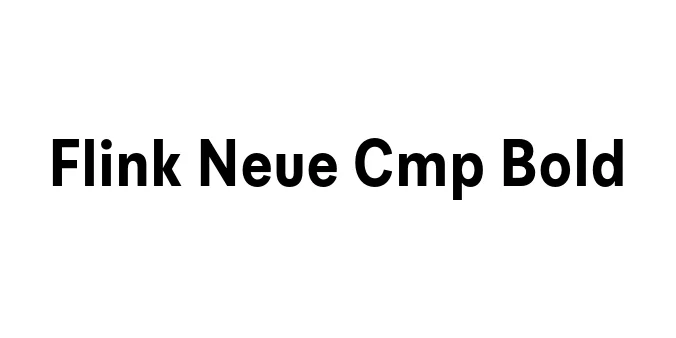
Flink Neue Cmp Bold
Designed by W Foundry
Flink Neue Cmp Bold is a powerful geometric sans-serif typeface designed by the creative team at W Foundry. This specific "Compact" variant was meticulously crafted to deliver maximum visual impact while maintaining a narrower footprint, making it an ideal choice for high-density layouts. It represents an evolution of the original Flink family, refined with improved proportions and a more sophisticated character set that meets the demands of modern digital and print environments.
The Bold weight of the Cmp sub-family is characterized by its heavy strokes and tight apertures, providing a muscular aesthetic that commands attention. Its clean lines and mathematical precision are balanced by subtle optical corrections, ensuring that the typeface remains legible and professional across various media. Whether used in large-scale outdoor advertising or precise mobile interfaces, this font brings a sense of structural integrity and contemporary style to any project.
Flink Neue Cmp Bold Best Uses
Ideal for creating strong, minimalist, and memorable corporate identities.
Perfect for striking magazine headlines and high-impact cover titles.
Excellent for hero sections, call-to-action buttons, and navigational elements.
Great for poster design and billboards where space is limited but impact is required.